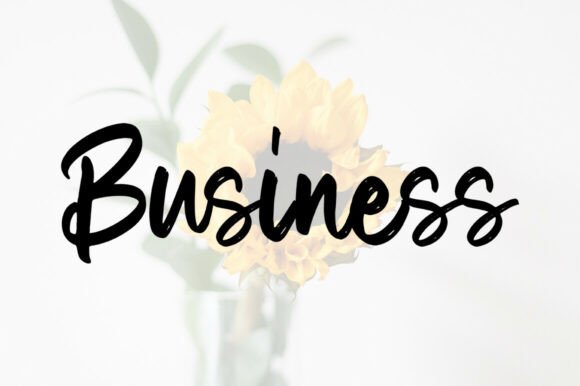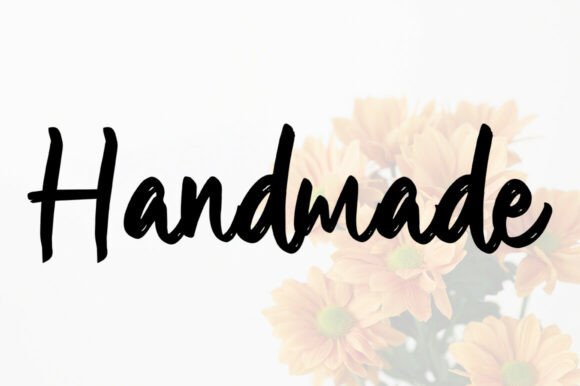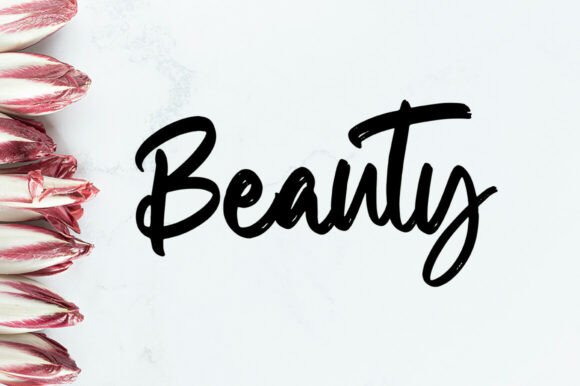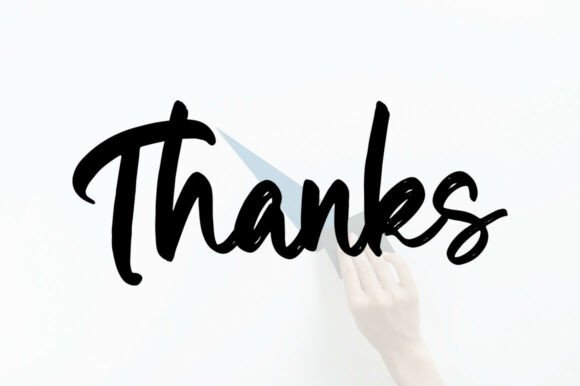
The Sweet Charm of Cocktails Font: A Designer’s Delight
I’ll never forget the time I was working on a wedding invitation project, and my client asked for a font that was “fun, yet elegant.” I scoured the internet, trying out font after font, but nothing seemed quite right. That was until I stumbled upon Cocktails Font. This sweet handwritten font has been a game-changer for me, and I’m excited to share its charm with you! 🍹
I’ve had the pleasure of working with Cocktails Font on several projects, and here’s what I think:
- ✨ Friendly and approachable feel that’s perfect for creative projects
- ✅ Easy to read, even in smaller sizes
- 💕 Beautifully crafted with a sweet, whimsical touch
Of course, no font is perfect, and I’ve noticed a few quirks:
- 🤔 Some letters may appear a bit inconsistent in size, which can be a bit jarring if you’re used to more uniform fonts
- ⚠️ Not ideal for body text or long blocks of writing; it’s best used for headings, titles, or short paragraphs
One of the best things about Cocktails Font is its support for OpenType features and glyphs. This means you can access:
- Stylistic alternates: Swap out letters for alternate versions with a more decorative flair
- Ligatures: Combine letters for a more elegant look
- Glyphs: Access special characters, like ornaments or icons, to add visual interest
The Story Behind Cocktails Font
Cocktails Font was designed with love and care by a talented type designer who wanted to create a font that would bring a smile to people’s faces. Inspired by the world of mixology and the art of crafting the perfect cocktail, this font is meant to evoke the feeling of a warm, sunny day and a refreshing drink in hand.
| Is Cocktails Font suitable for body text? | No, Cocktails Font is best used for headings, titles, or short paragraphs due to its decorative nature. |
| Is Cocktails Font available in different weights or styles? | Currently, Cocktails Font is available in a single weight, but the designer may release additional weights or styles in the future. |